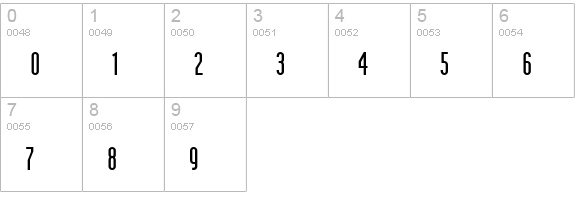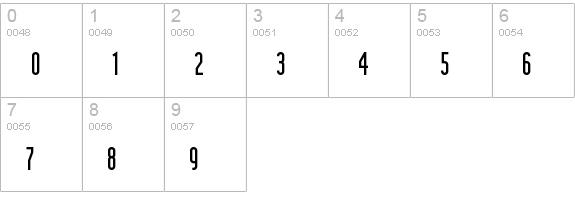
ModulaBold Bold is a strong, high-contrast variant in the ModulaBold typeface family \xE2\x80\x94 well suited to headlines, attention-grabbing titles, and strong calls-to-action.
ModulaBold Bold font is a striking and powerful typeface that exudes confidence and modernity. With its bold weight and clean lines, it commands attention and adds a touch of sophistication to any design project. Whether you are creating posters, logos, or headlines, ModulaBold Bold will make your text stand out and leave a lasting impression. The best part? ModulaBold Bold font is available for free download at FontsMarket.com. This means you can easily access this high-quality font without breaking the bank. So why wait? Elevate your designs with ModulaBold Bold today and make a bold statement that captures the attention of your audience.